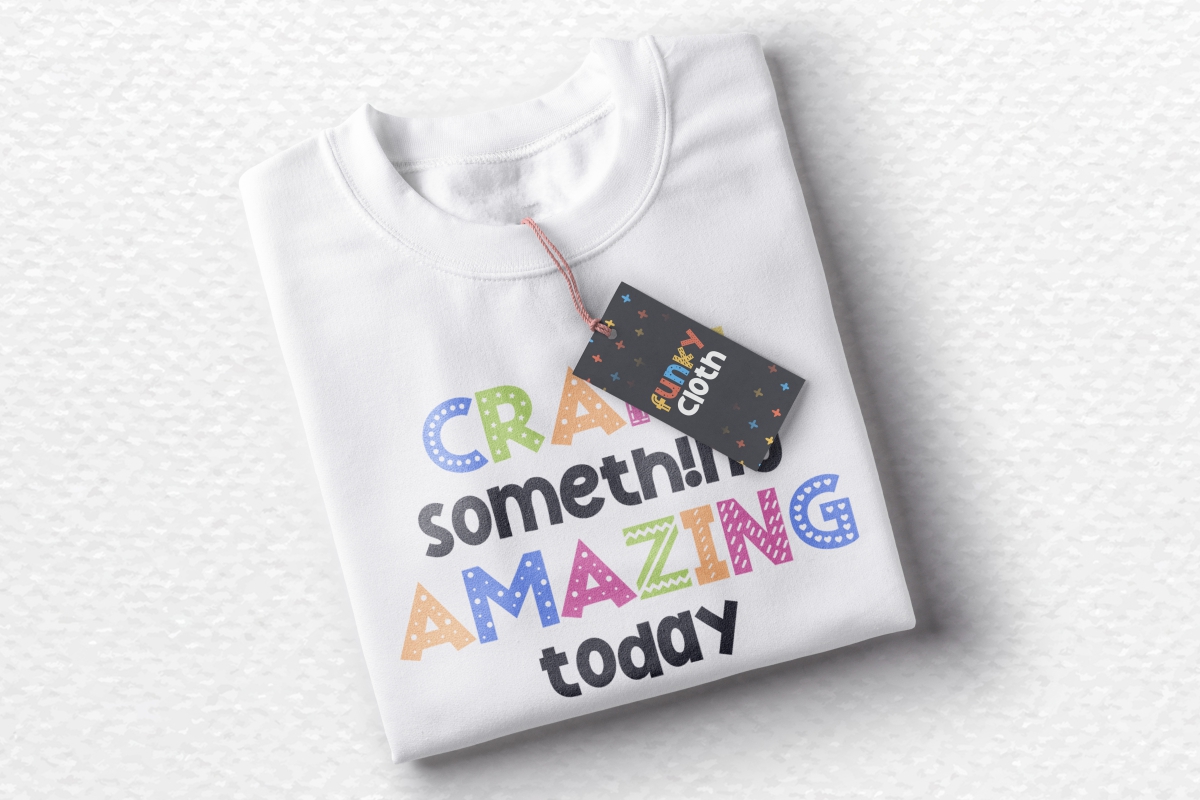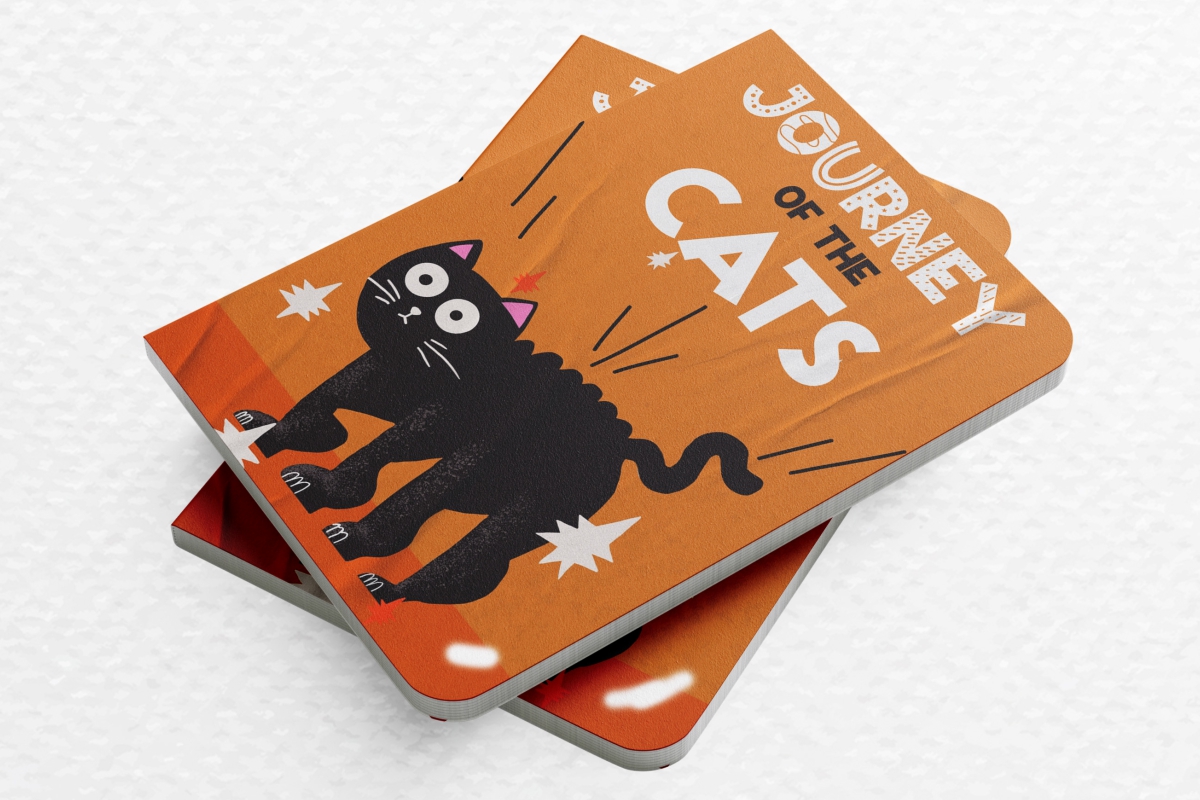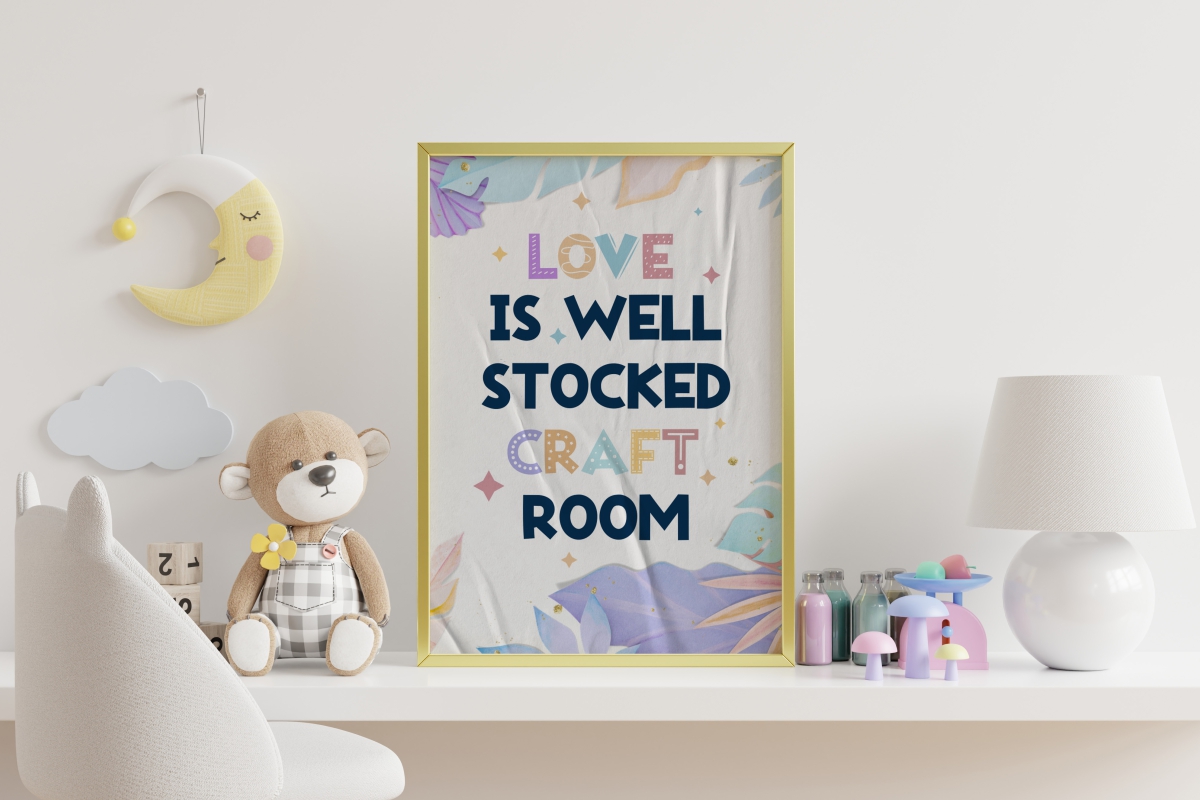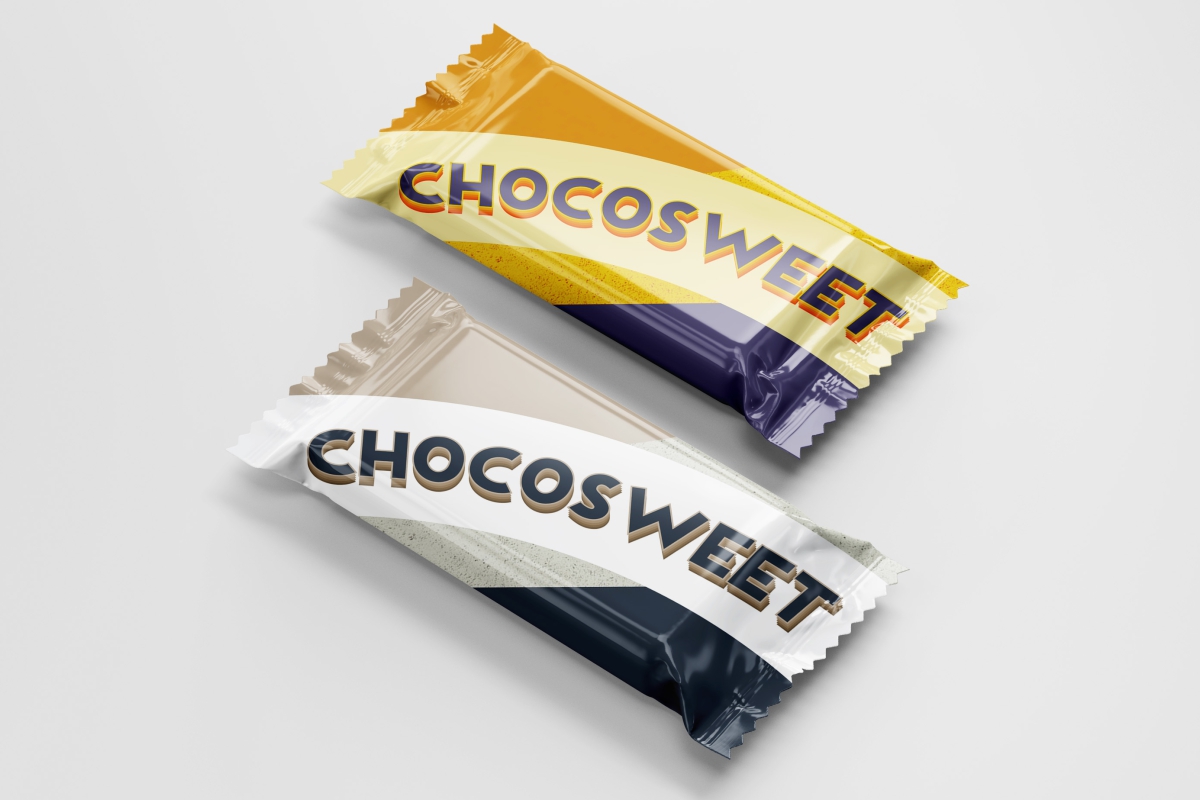
Cute Crafts Display Font
It’s a fun decorative font inspired by colorful handicrafts style. The font will be awesome for fashion, gift, products packaging, signage etc. Cute Crafts Font has two cute style, Regular and Decorative then will suit many industries and categories related to crafted, family, kids etc.